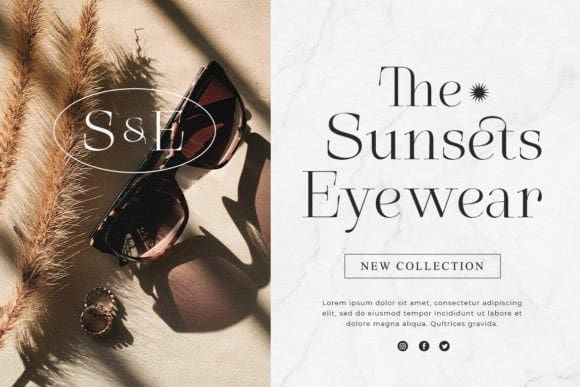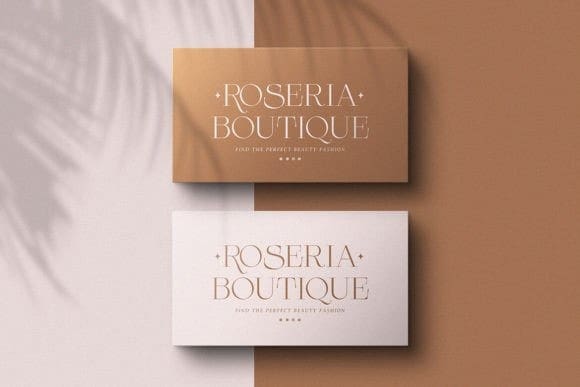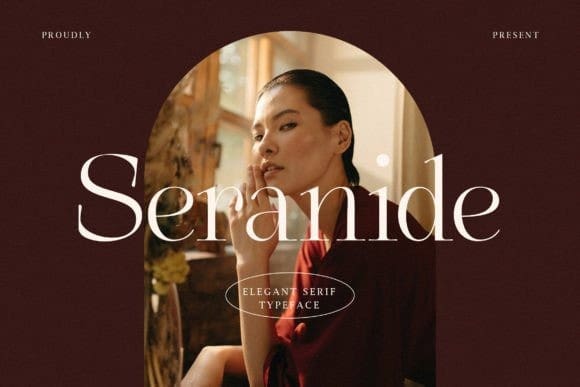
Seranide Font
Seranide Font – an exquisite serif typeface that adds a touch of sophistication to your designs! Embrace the versatility of “Seranide” as it effortlessly enhances your designs. Whether you’re creating refined logos, captivating book covers, prestigious certificates, or elegant stationery, this typeface will captivate your audience with its elegant and timeless style.